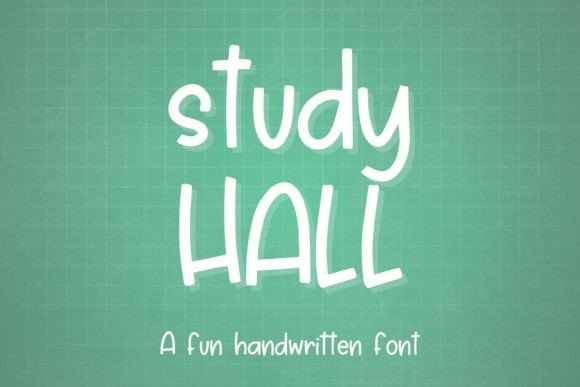
Introducing the captivating and enchanting "Study Hall" font – a delightful addition to your creative endeavors. Crafted with love by designingdigitals, this script font is a perfect choice for those seeking the best font for monogram Cricut projects. Brace yourself for an unforgettable journey into the world of whimsy and imagination.
With Study Hall, every letter dances on the page, boasting vibrant loops and lively curves that exude personality and charm. This handwritten gem breathes life into your designs, captivating your audience with its playful and quirky nature. Prepare to witness your projects come alive with a touch of fun and excitement.
Jolly Jotter, as we like to call it, is more than just a font – it's a gateway to unlimited creativity. Its versatility knows no bounds, making it a must-have for various design projects. Whether you're working on invitations, logos, branding, or social media content, Study Hall effortlessly adapts to your needs, allowing your ideas to flourish.
Picture this: a monogram Cricut project that not only reflects your unique style but also adds a dash of whimsical charm. Study Hall is the missing piece that completes the puzzle, elevating your designs to new heights. Its ability to blend seamlessly with different elements ensures that your creations stand out from the crowd.
But why settle for ordinary when you can have extraordinary? Study Hall unleashes your inner artist, infusing your work with a sense of playfulness that captivates hearts and minds. It's the font that sparks joy and brings smiles to faces. Let your imagination run wild and watch as your designs transcend expectations.
Embrace the power of Study Hall and unlock a world of possibilities. Its captivating presence will leave a lasting impression on your audience, drawing them in and making your designs unforgettable. Don't just create – create with purpose, with emotion, and with Study Hall.